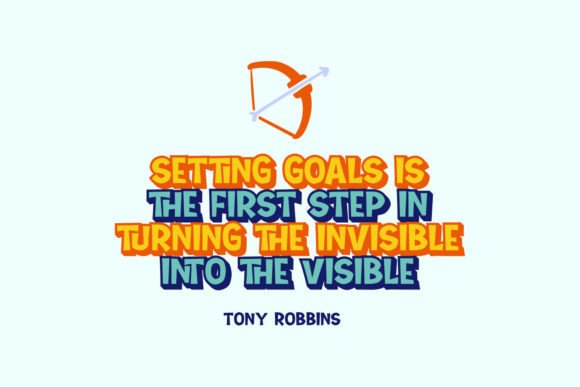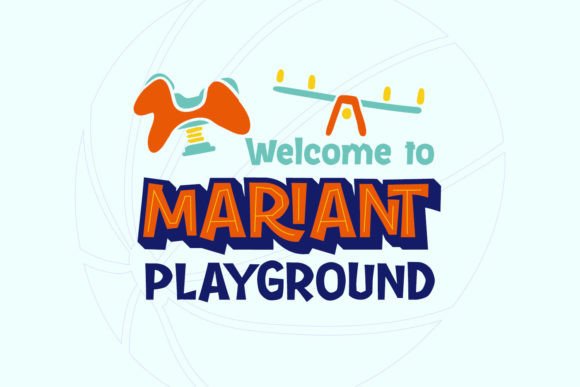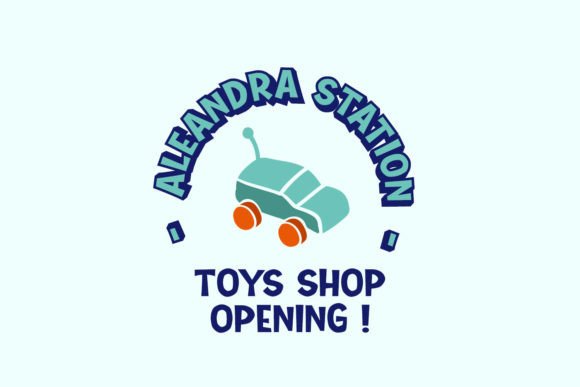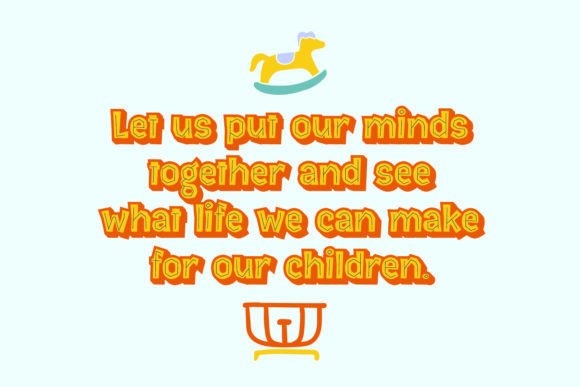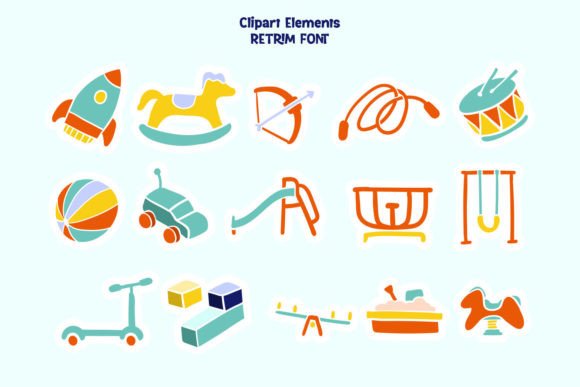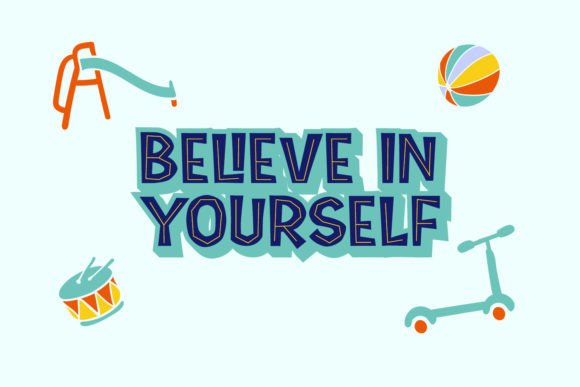
Introduction to Retrim Font
Be the center of attention through your sophisticated design with the awesome Retrim.
It is a display font that portrays cute looks While itโs easy to read thanks to all-capped characters, there are also distinctive styles or layers for optical effects.
Key Features of Retrim Font